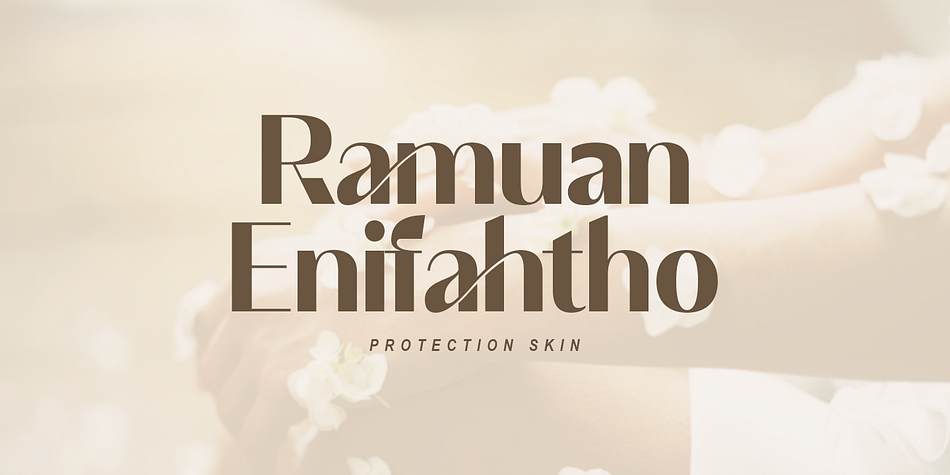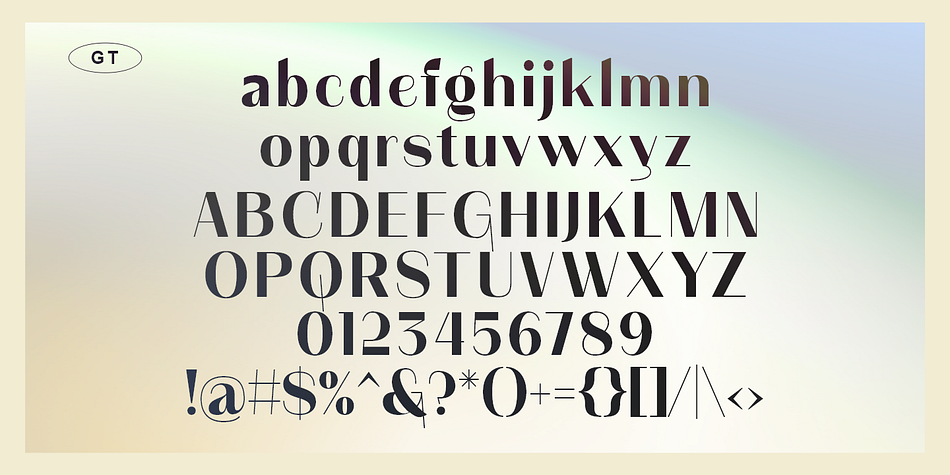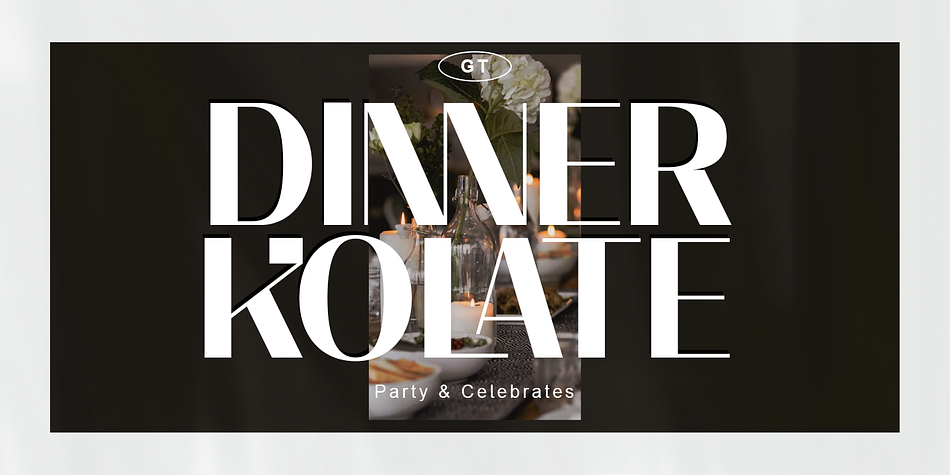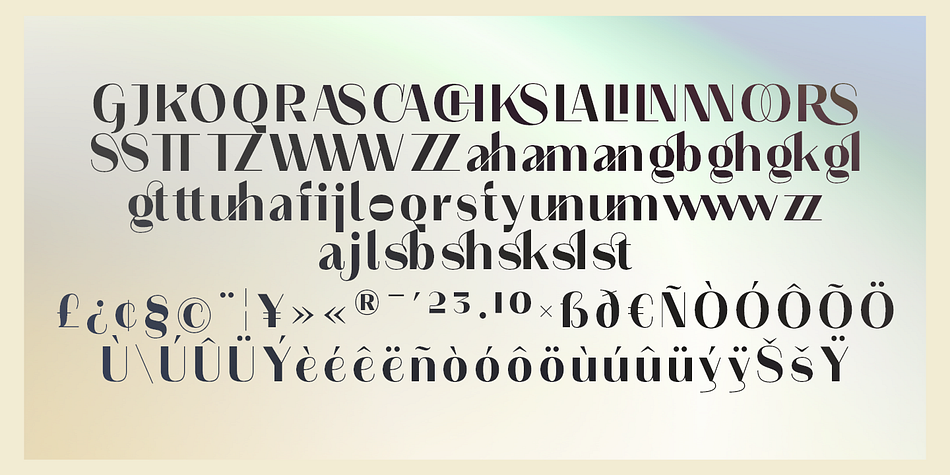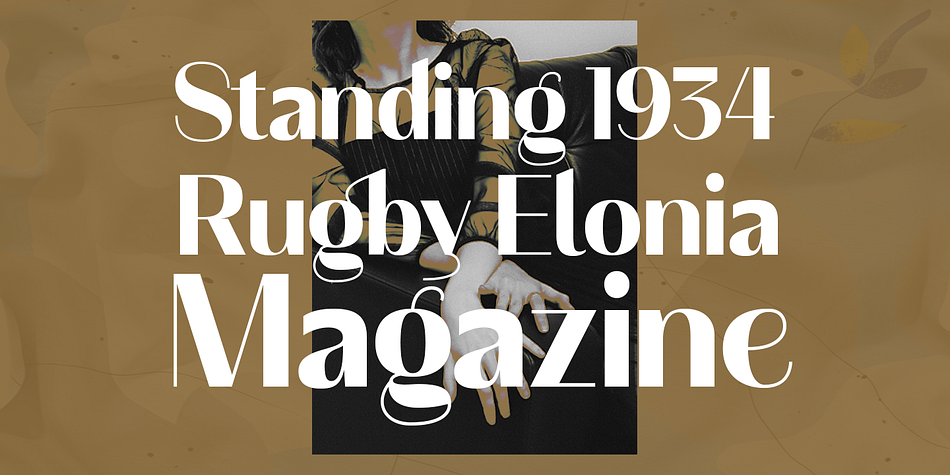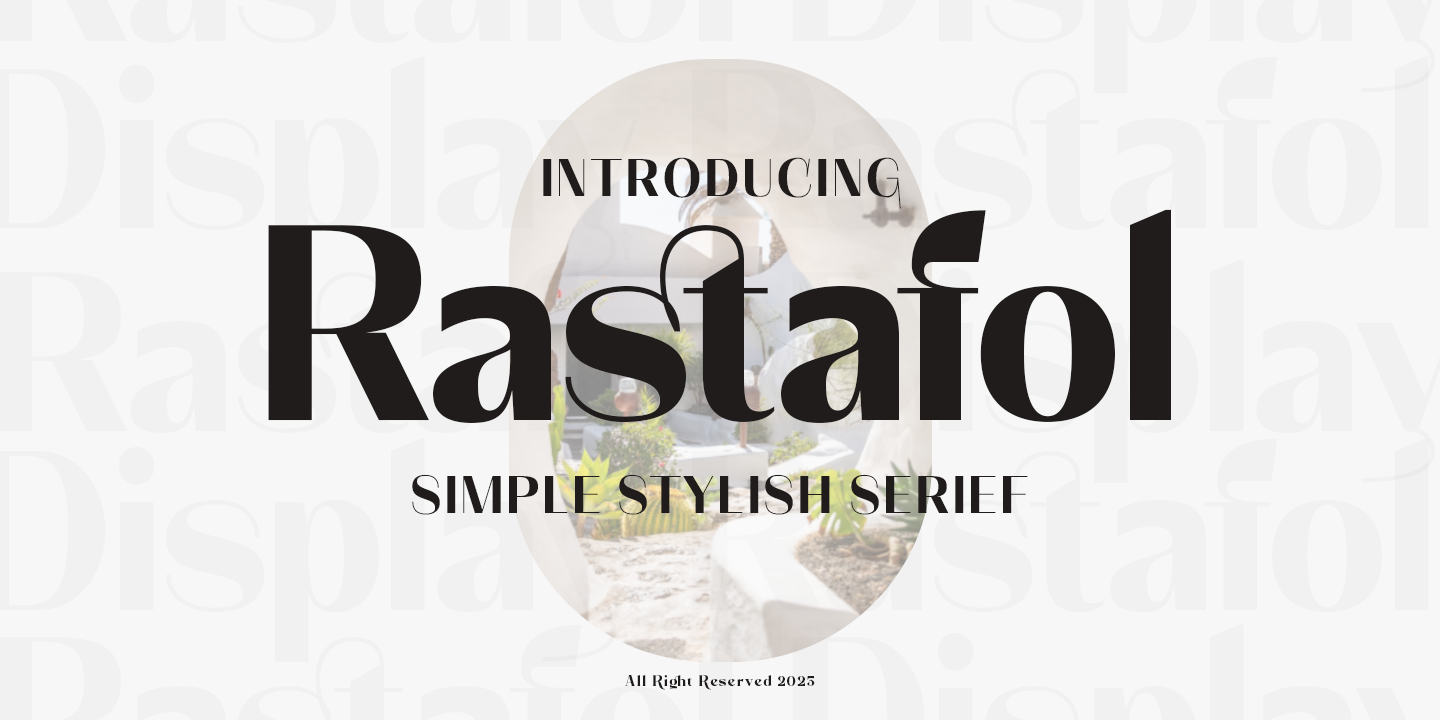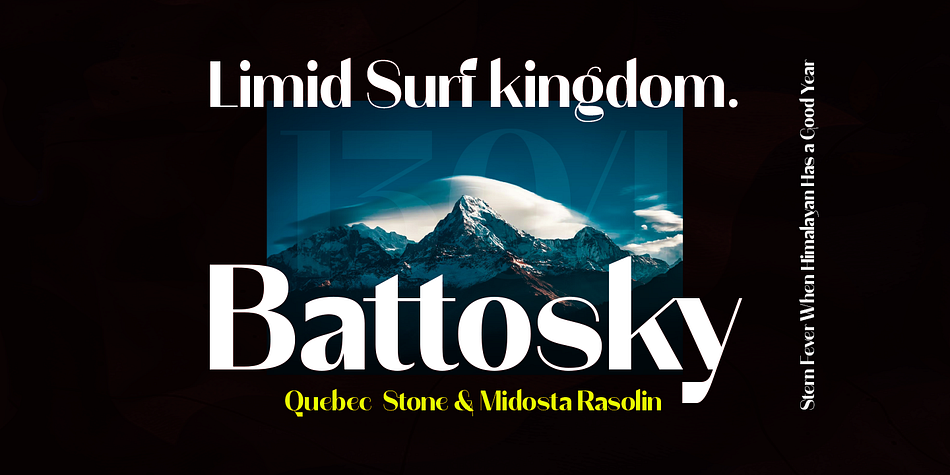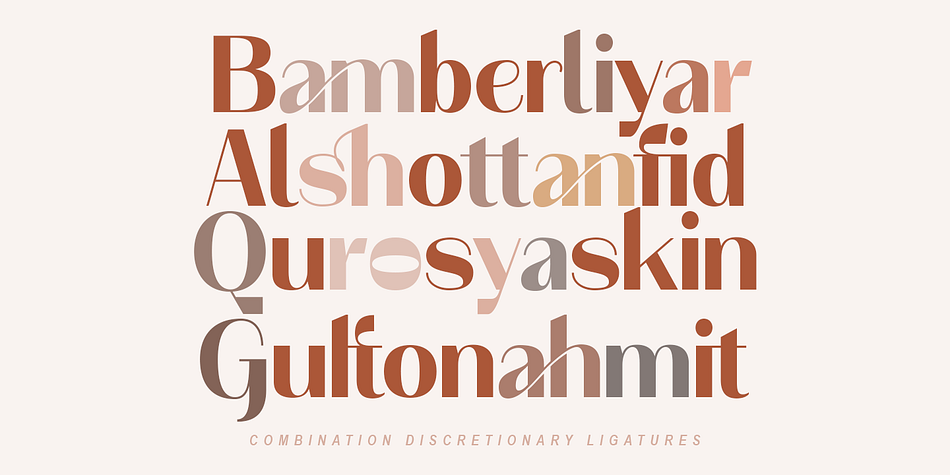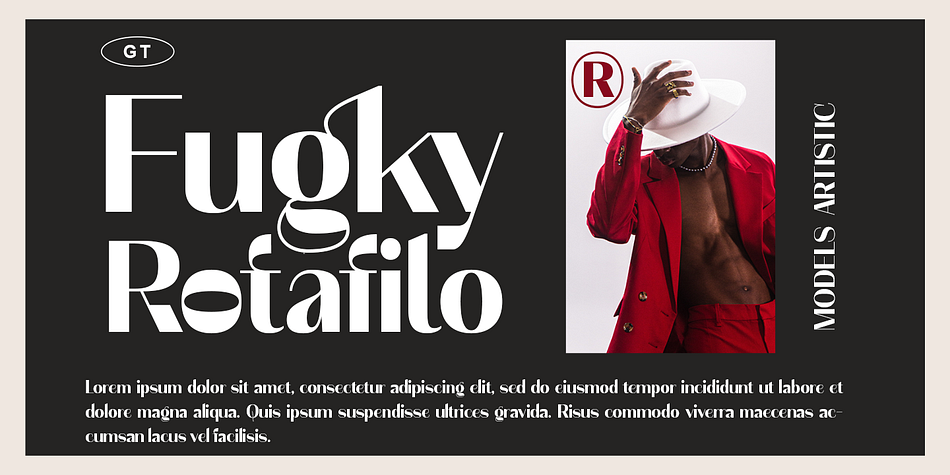
Rastafol
Rastafol is a display sans font family published by Gatype.
Rastafol is an elegant serif look with lots of ligatures and alternative bindings that will make
your presentation or logo stand out! Bring your brand to life and add a touch of elegance and
style with the Honey Dolista font. customize it for your titles, logos, business cards, printed quotes, all kinds of invitations,
cards, packaging and your website or social media branding.
.Features Include:
.Uppercase & Lowercase
.Swash, Ligature
.Alternates Binders
.Numbers & Symbols
.Multi language